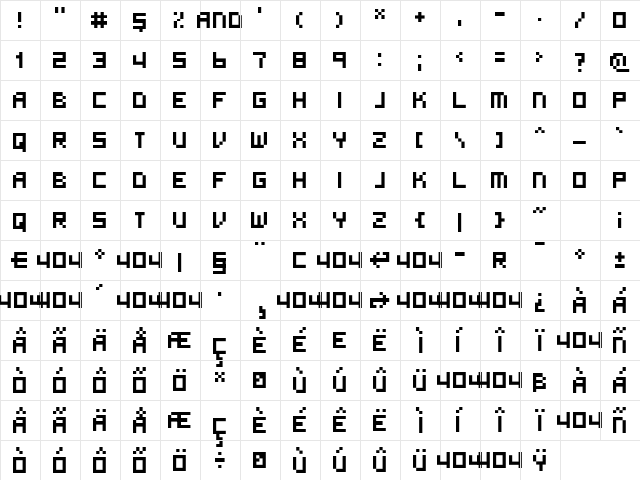
404px Regular
Design Context for 404px Typeface
404px offers clean, dependable letterforms without strong stylistic allegiance, making it a practical choice for designers who need flexibility.
Pro Tip: Use 404px in both headline and body roles to test its range before committing to a single application.